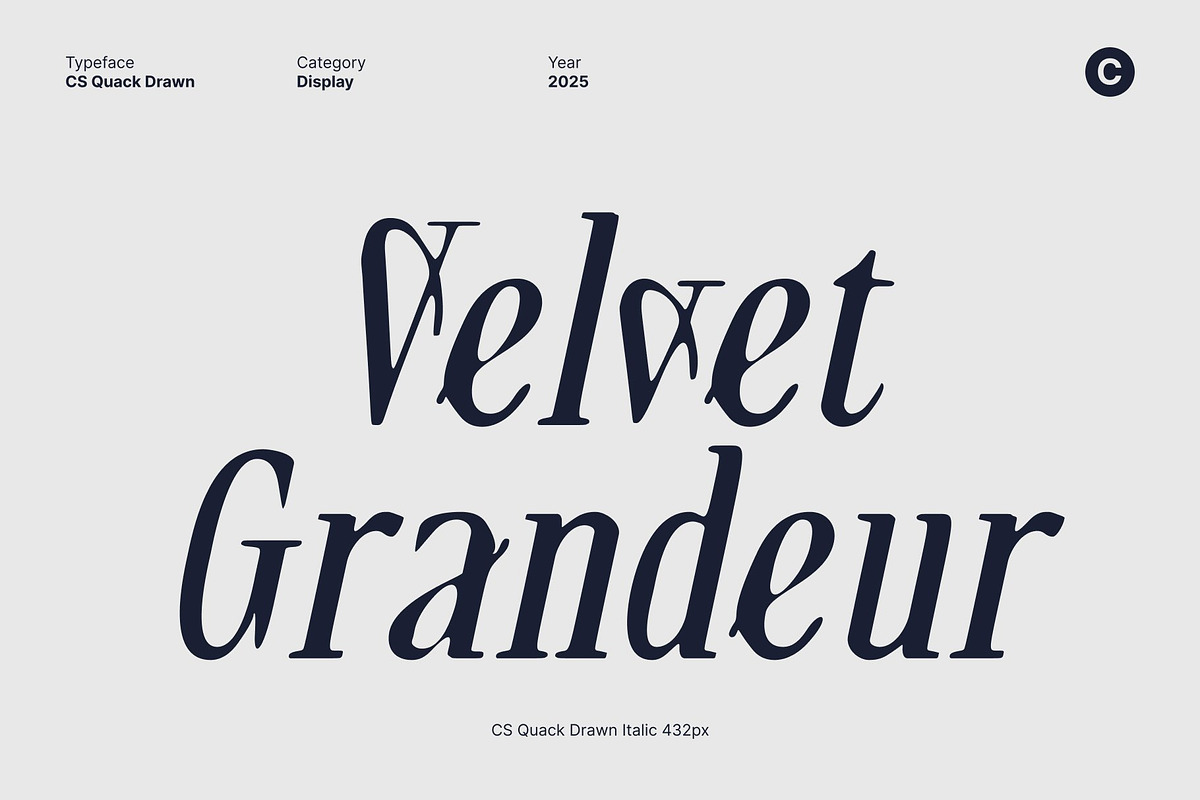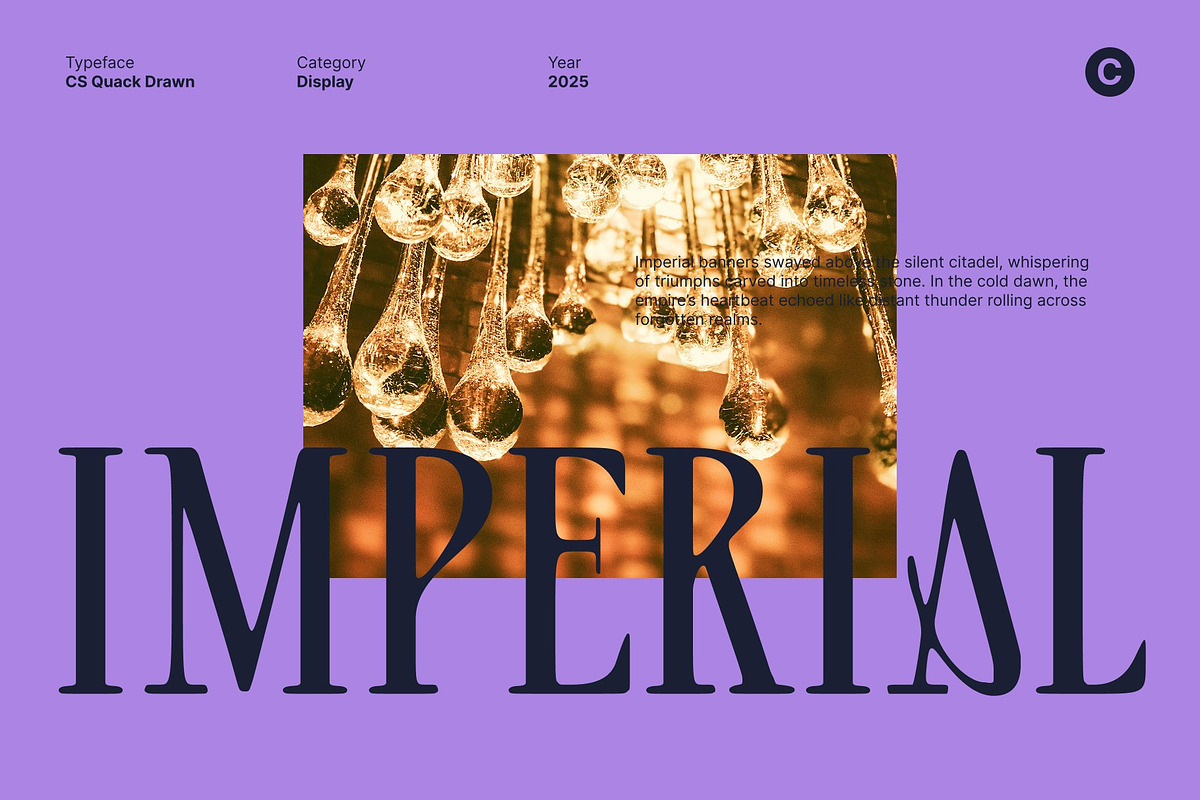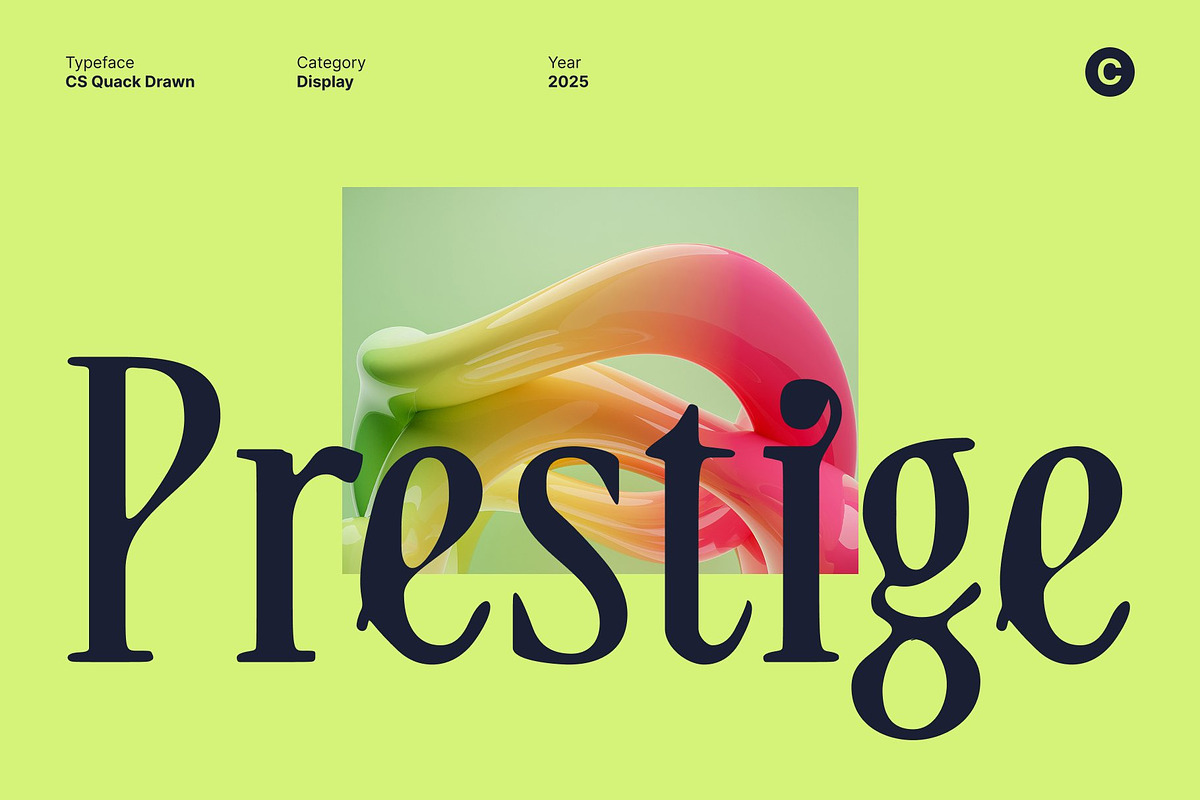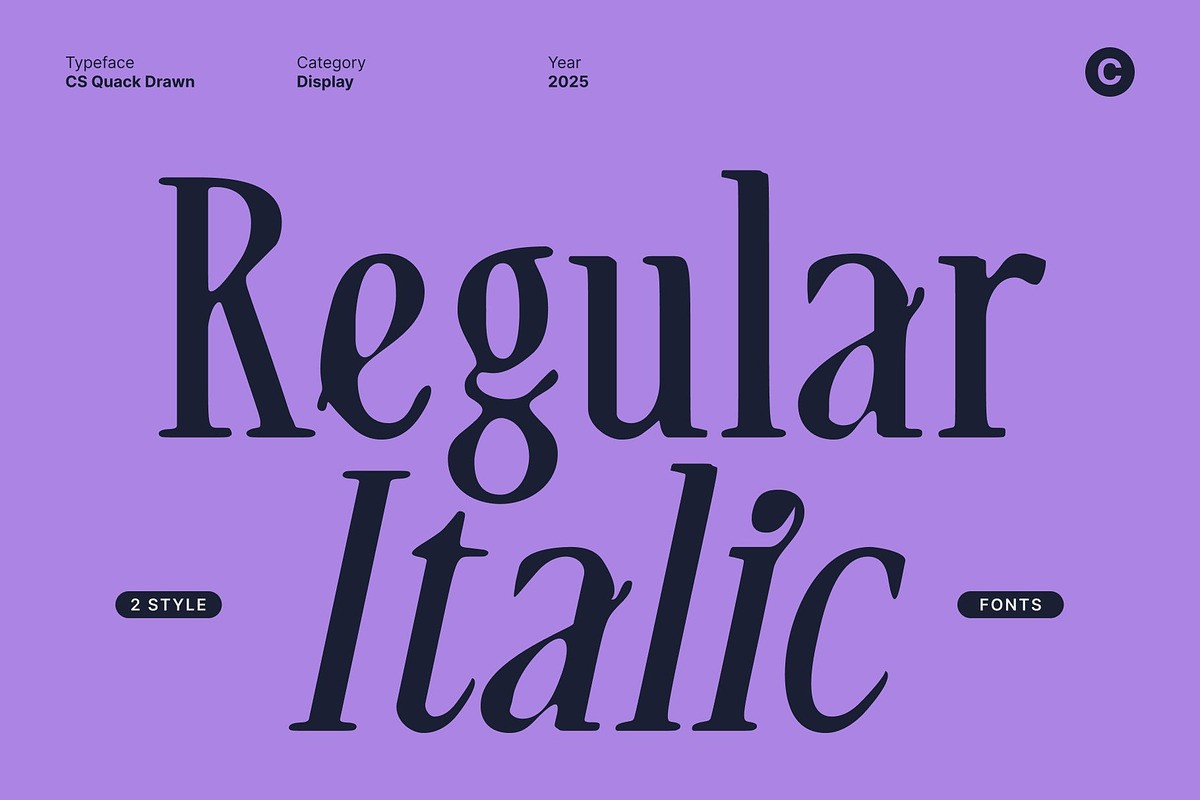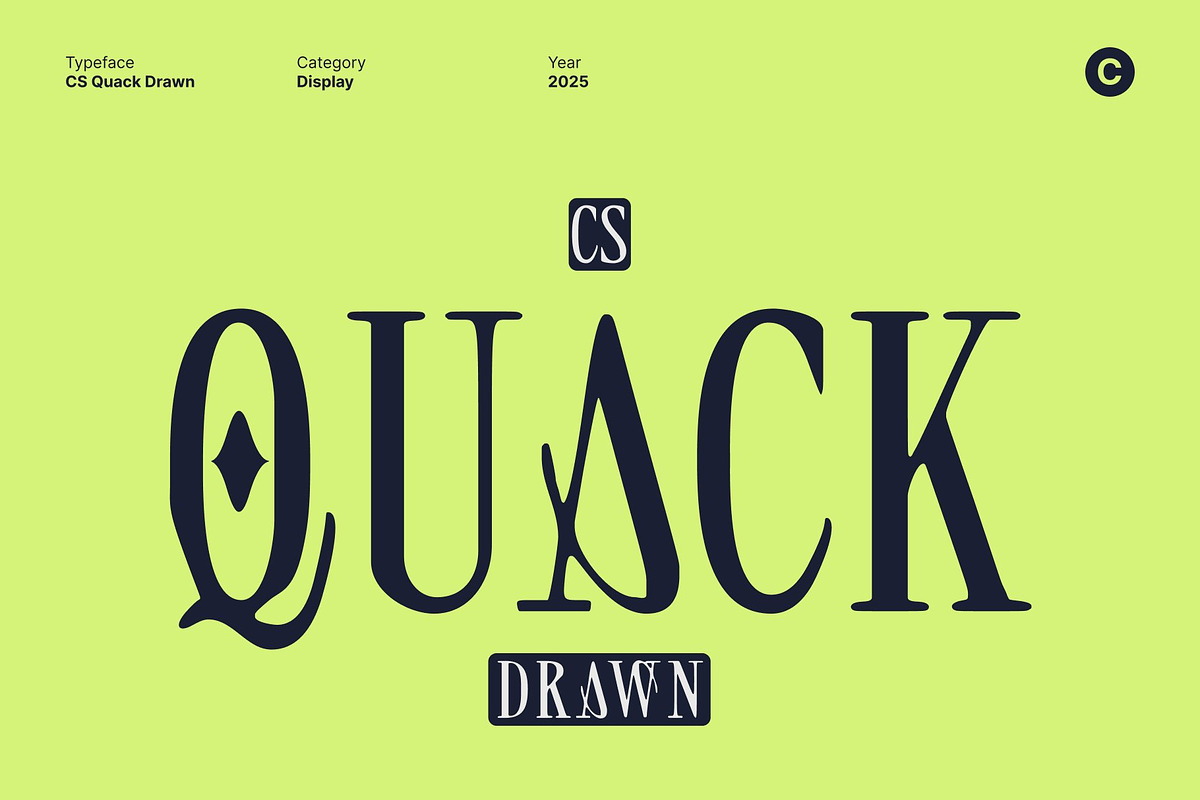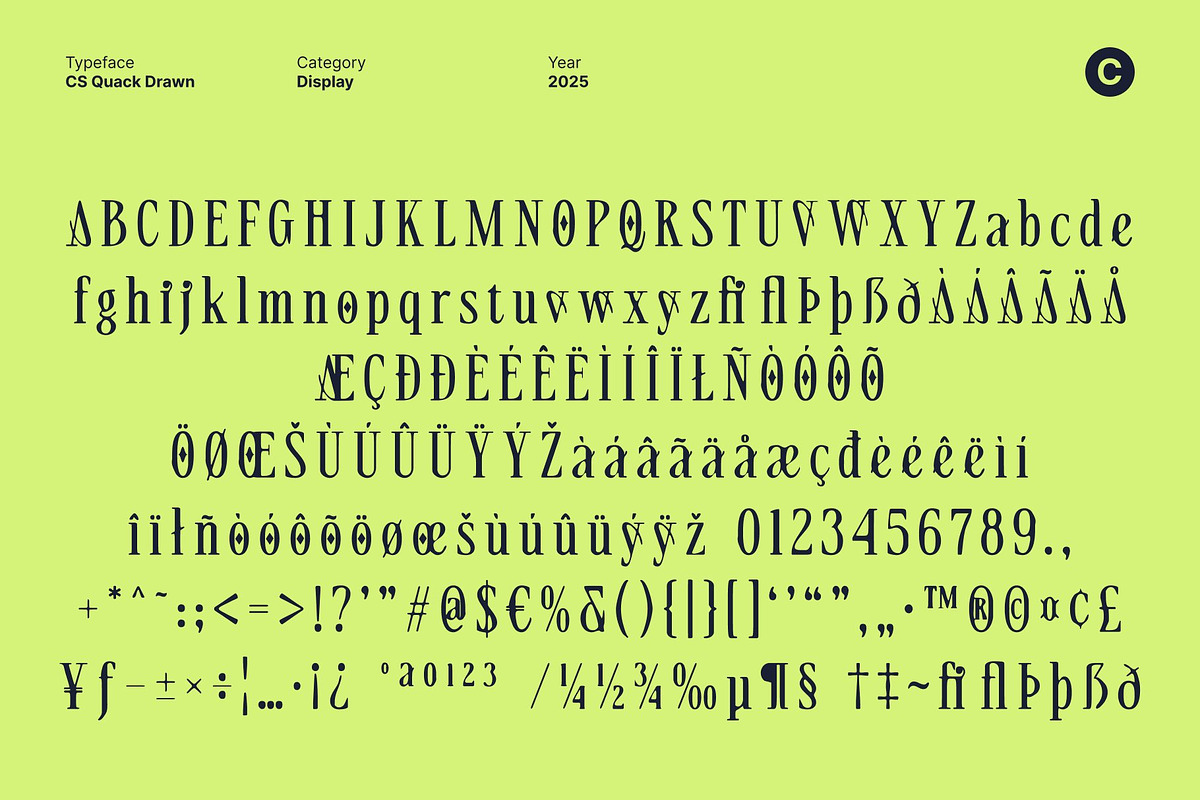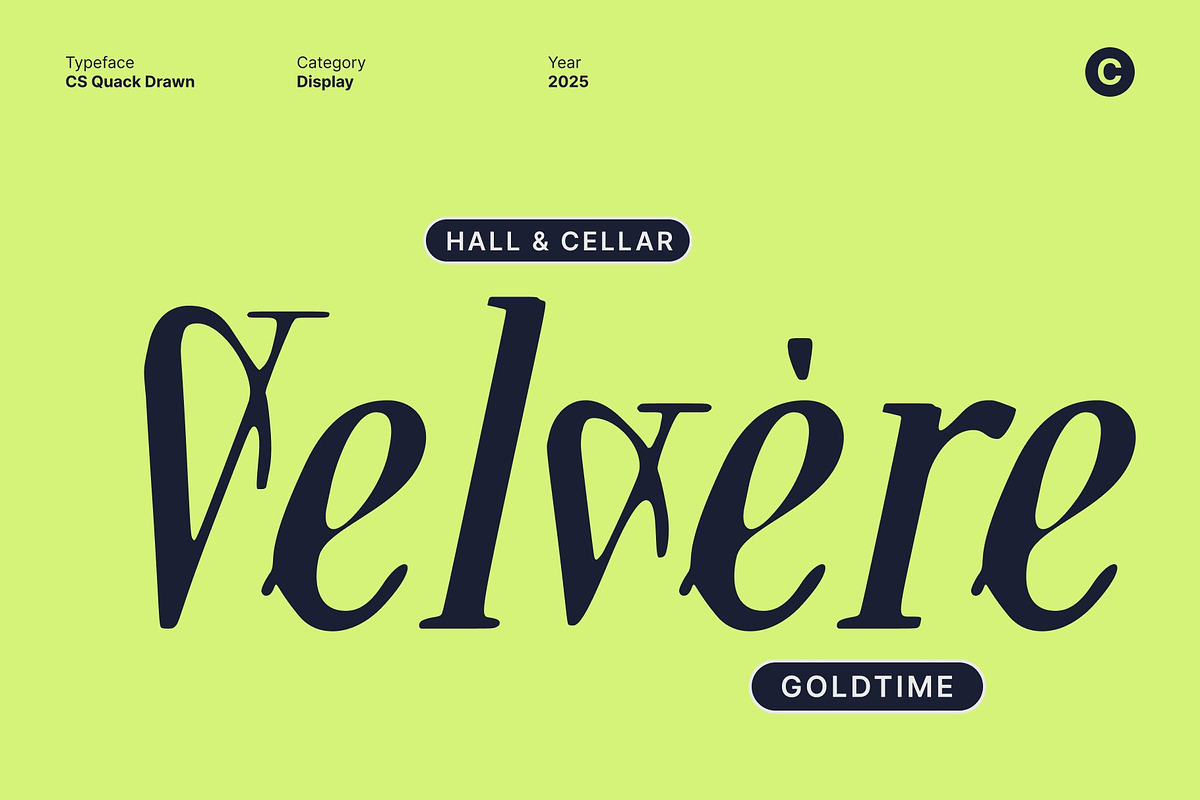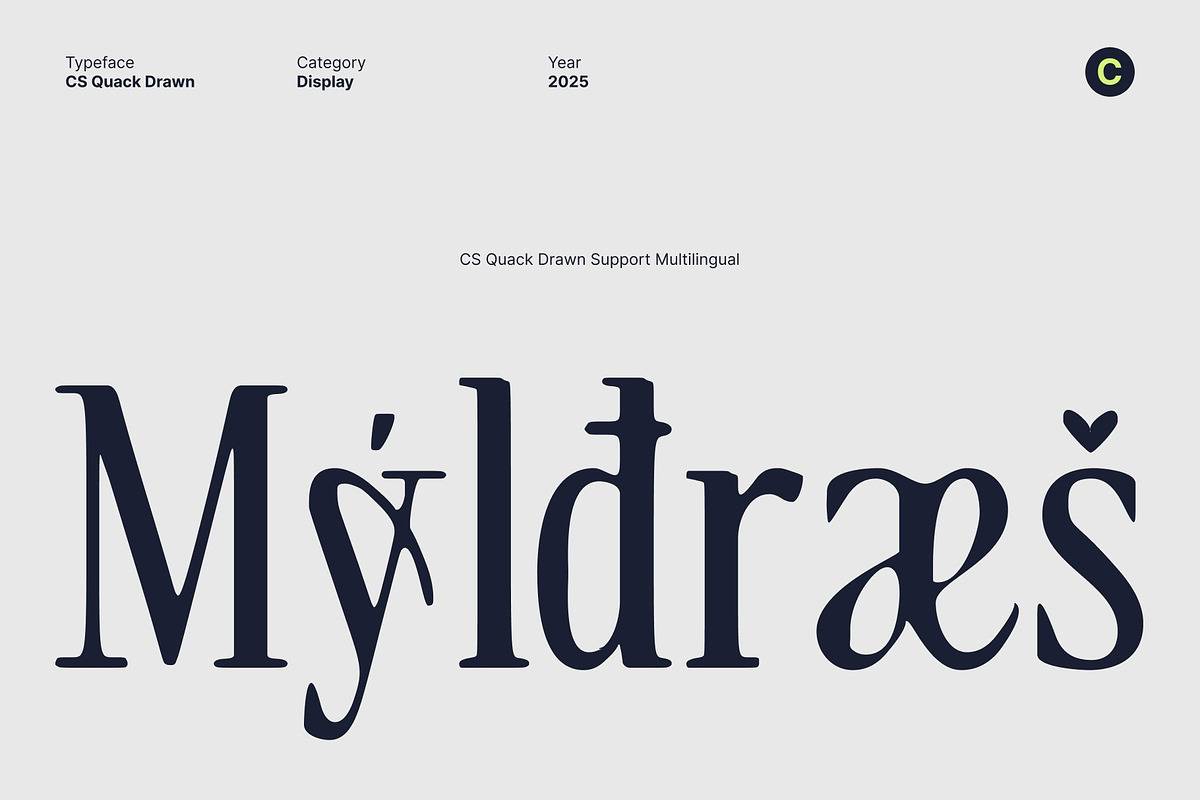
CS Quack Drawn
CS Quack Drawn – Aesthetic Display Font with Artistic Drawn Texture
Trendy, Stylist Letterforms with Elegant Curves A true aesthetic display font, this typeface combines smooth, soft curves with sleek, minimalist shapes to create a visually refined and contemporary look. Its balanced proportions and stylish forms make it ideal for projects that aim to feel modern, chic, and Instagram-ready.
Artistic Drawn Effect for Unique Texture and Personality The drawn effect adds an organic, handcrafted texture to each character, enhancing the font’s artistic quality. This subtle detailing brings warmth, personality, and visual interest, transforming minimalist shapes into expressive and engaging typography.
Perfect for Fashion Branding, Social Media, and Modern Posters Designed for creative, visually-driven applications, this font is ideal for fashion branding, social media posts, modern posters, and lifestyle projects. Its combination of aesthetic curves and drawn texture ensures your design stands out with style and sophistication.
Chic, Artistic, and Visually Captivating By merging minimalist elegance with handcrafted drawn texture, this font delivers a typeface that feels contemporary, artistic, and expressive. It’s the perfect choice for designers seeking a modern, stylish, and visually engaging display font for digital and print projects.